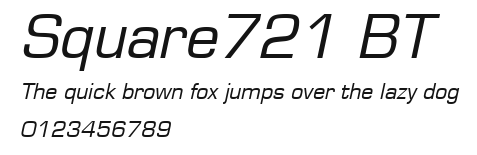
• Font Name: Square721 BT
• Full Font Name: Square721 BT Italic
Square721 BT.ttf is a modern, elegant sans-serif font designed for ultimate readability and visual harmony. Perfect for branding, headlines, web design, and print materials.